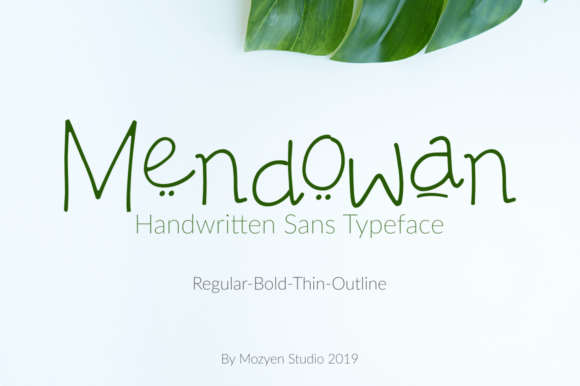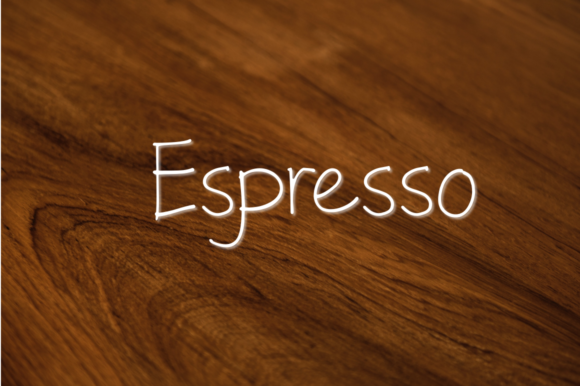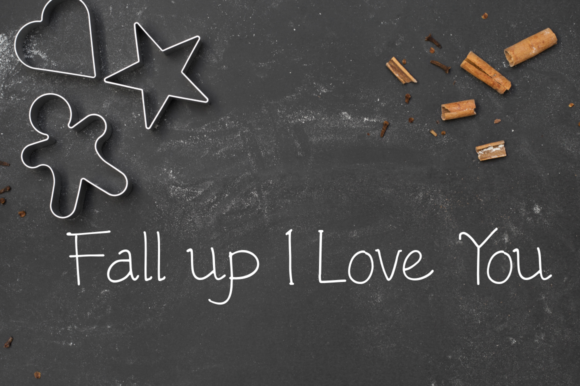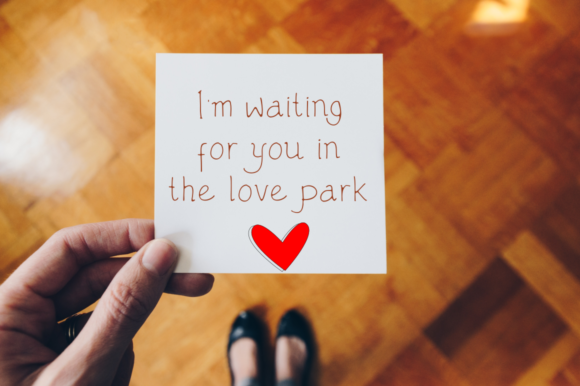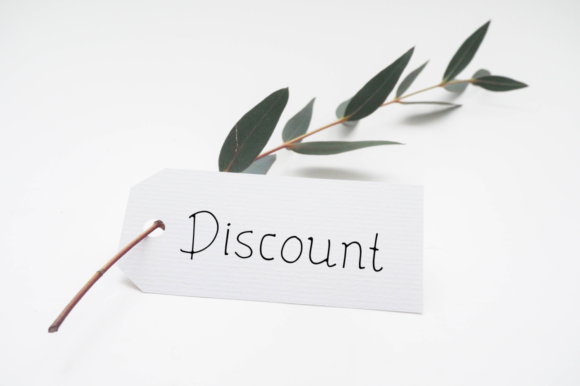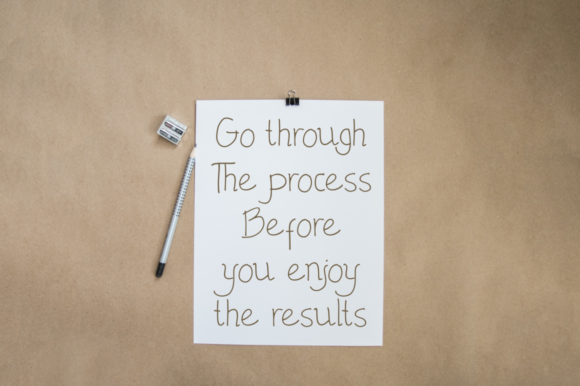
Mendowan Family Font
About Mendowan Family Font
The Mendowan is an unique handwritten family. It has a great readability and is perfect for adding a natural, handwritten touch to your designs. There are 3 styles included which can be combined perfectly, giving you the opportunity to create multiple unique designs in an instant.